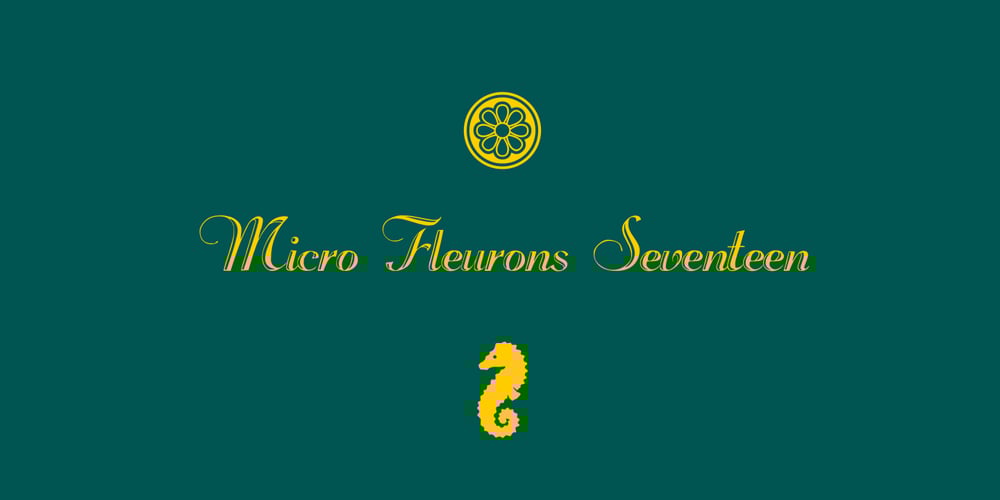
Micro Fleurons
Micro Fleurons font
Micro Fleurons Font Family was designed by Paulo W and published by Intellecta Design. Micro Fleurons contains 15 styles and family package options. Micro Fleurons has small decorative motifs to use in small and soft design projects. Works great when flourish and ornament like assets are needed. Micro Fleurons are a family of 17 fonts (and growing up) with thousands of ornaments to your choice.